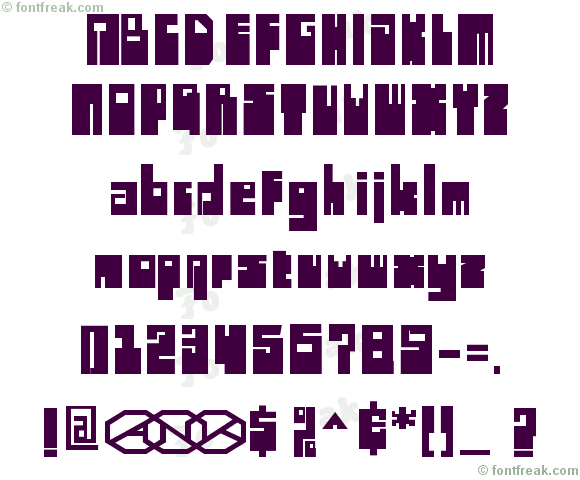
Highboot
Highboot is a striking display font designed by Austin Kurowski, characterized by its bold, geometric shapes that demand attention. This sans-serif typeface features a strong stroke weight and minimal contrast, giving it a modern and clean appearance. The unique letterforms are both playful and functional, making Highboot a versatile choice for a variety of design projects. The well-balanced spacing between characters enhances readability, while the distinctive style adds an element of flair to any composition.
Ideal for eye-catching applications, Highboot is particularly suited for use in advertising, branding, and promotional materials. Its bold presence makes it an excellent choice for headlines and posters, where it can effectively draw the viewer's eye. Additionally, this font works wonderfully for product packaging, social media graphics, and even as a standout option for restaurant menus or event flyers. The font's unique aesthetic appeals to graphic designers and content creators looking to make a lasting impression.
The target audience for Highboot includes small business owners and marketers who want to convey a modern and energetic brand personality. Graphic designers seeking to enhance their creative projects with a distinctive typeface will also find Highboot to be an invaluable resource.